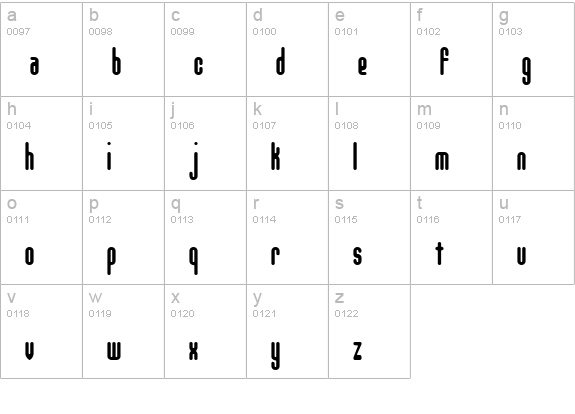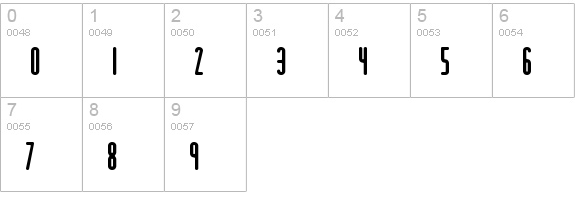
Unanimous Inverted BRK Font Details
Unanimous Inverted BRK font is a unique and eye-catching typeface that will surely make a lasting impression. With its bold and inverted design, this font stands out from the crowd, adding a touch of creativity and originality to any project. This font is perfect for those who want to make a statement and break away from the ordinary. Its distinct and unconventional style will captivate and engage readers, making it ideal for headlines, posters, logos, and more. Whether you're designing a cutting-edge website or creating eye-catching advertisements, Unanimous Inverted BRK font will elevate your work to new heights. One of the best things about Unanimous Inverted BRK font is that it is freely available to download at FontsMarket.com. This means that you can bring your design visions to life without any additional cost. It's a font that not only looks great but also fits perfectly into any budget. With its wide range of characters and glyphs, Unanimous Inverted BRK font offers versatility and flexibility. It allows you to experiment with different typographic styles, giving you the freedom to express your creativity in countless ways. The clean and legible letterforms ensure that your message is communicated effectively and effortlessly. Whether you're a graphic designer, web developer, or just someone who appreciates beautiful typography, Unanimous Inverted BRK font is a must-have addition to your collection. Its unique and striking design will make your work stand out and leave a lasting impression on your audience. So why wait? Download Unanimous Inverted BRK font today from FontsMarket.com and embark on a creative journey that is not only visually captivating but also free of charge. Elevate your designs with this extraordinary font and watch as they come to life with style and flair.